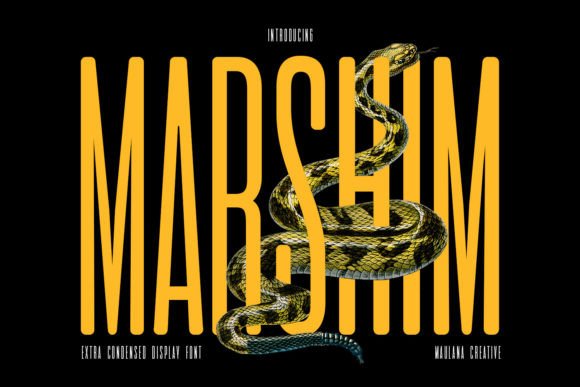
Introducing Marshim Font: The Gateway to Visual Supremacy in Digital Designs
As you embark on the journey to elevate your design projects, allow Marshim Font to be your guiding light—a modern and captivating sans-serif font family that will transform your creative visions into breathtaking realities. With its tall and enchanting letter forms, Marshim Font transcends the boundaries of ordinary typography, injecting a touch of elegance and style into every word you craft.
Crafted with meticulous precision, Marshim Font boasts a versatility that adapts seamlessly to a myriad of design endeavors. Whether you seek to craft captivating headlines that command attention, body copy that flows with grace, or branding that exudes sophistication, Marshim Font is your steadfast companion. Its unique design adds a layer of drama and visual intrigue, ensuring that your projects captivate audiences and leave a lasting impression.
Imagine the allure of your website's headlines, rendered with Marshim Font's tall and slender characters, beckoning visitors to delve deeper into your digital haven. Envision the impact of your social media posts, adorned with Marshim Font's captivating letterforms, captivating the attention of scrolling audiences. Picture the allure of your marketing materials, infused with Marshim Font's distinctive charm, leaving a lasting impression on potential customers.
With Marshim Font at your disposal, the possibilities are boundless. Unleash your creativity and explore the uncharted territories of design, knowing that this font family will amplify your vision and transform your projects into masterpieces. As you delve into the world of Marshim Font, you'll discover a font that not only enhances your designs but also ignites your passion for visual artistry.